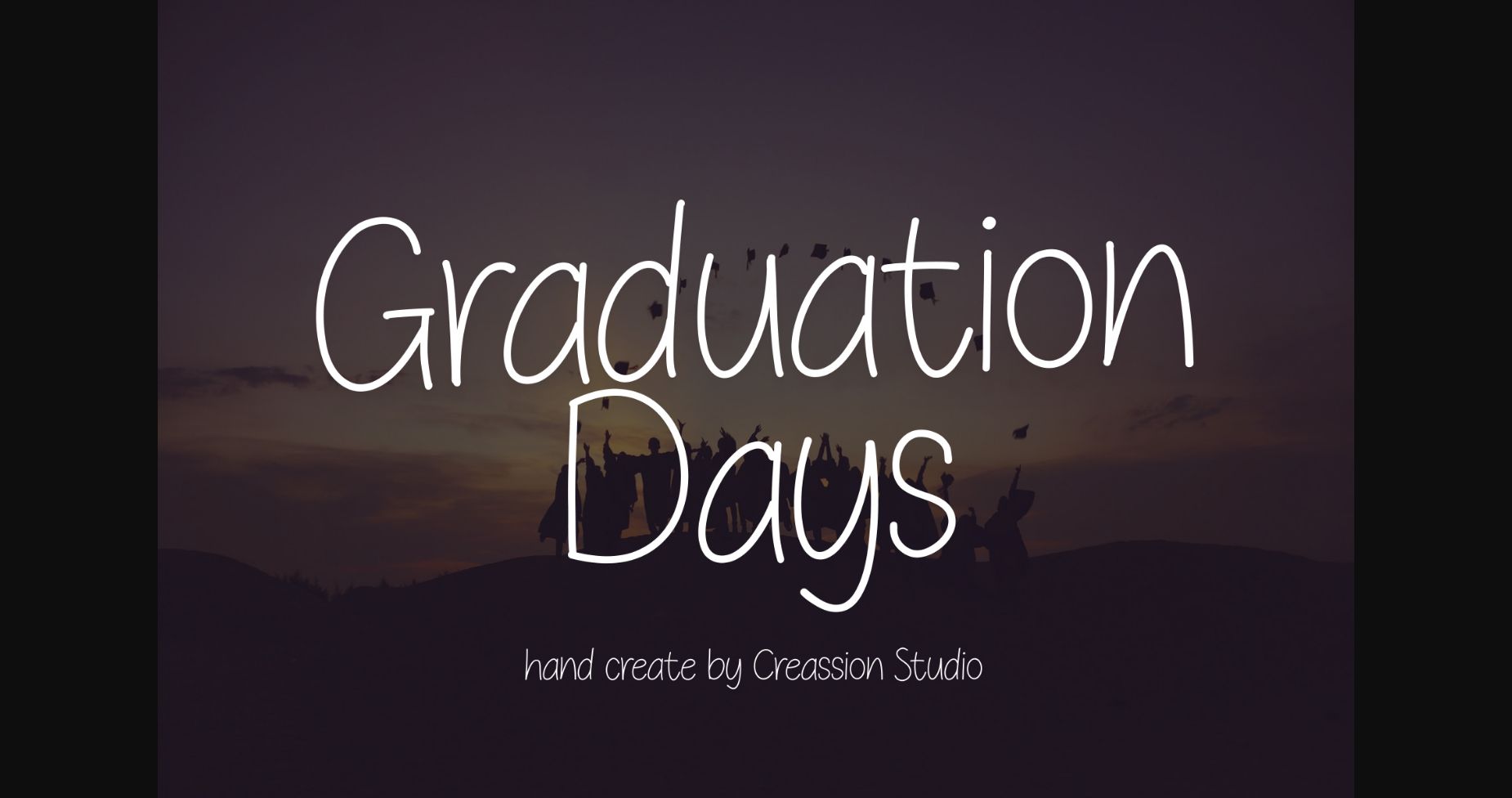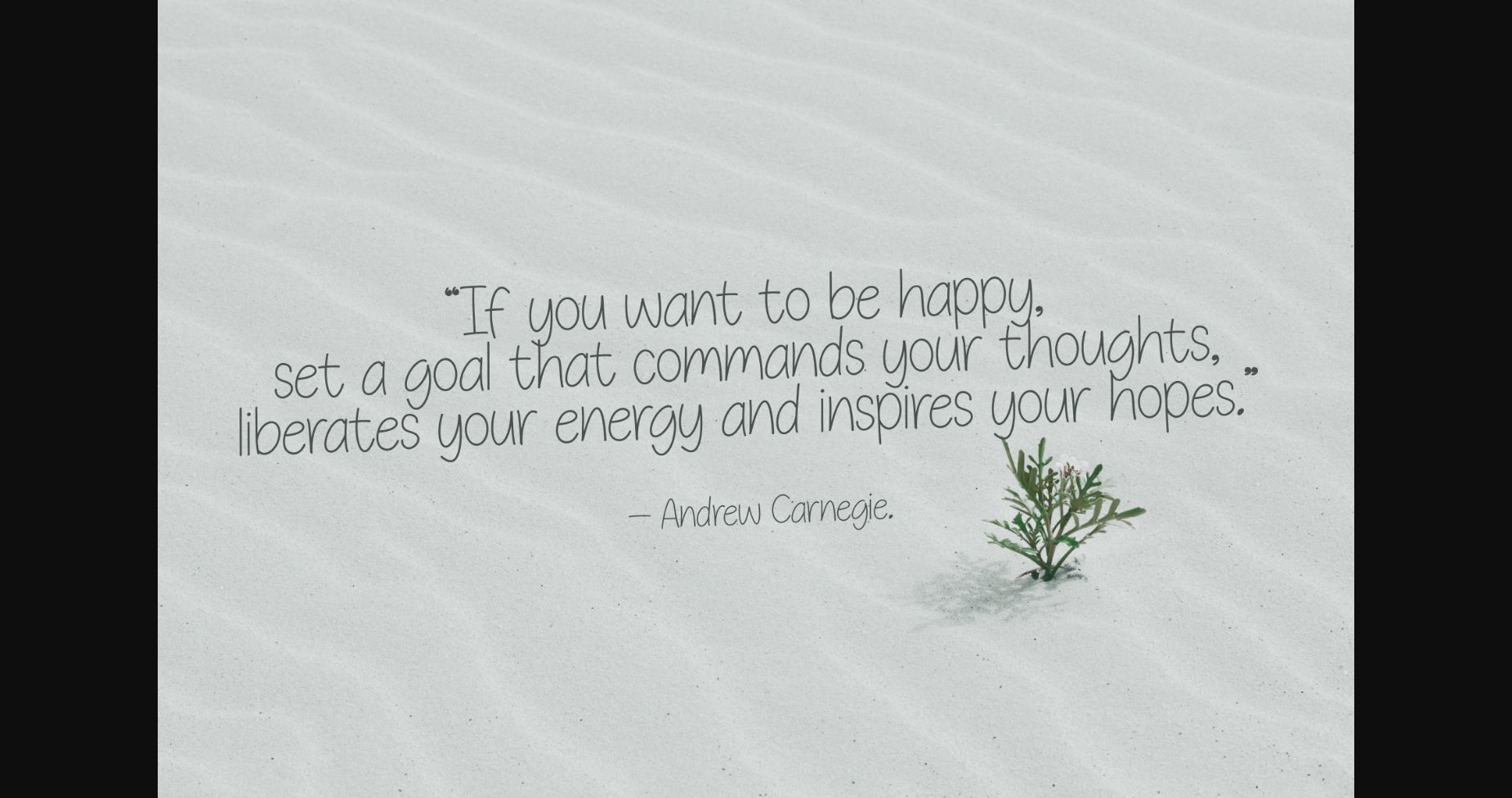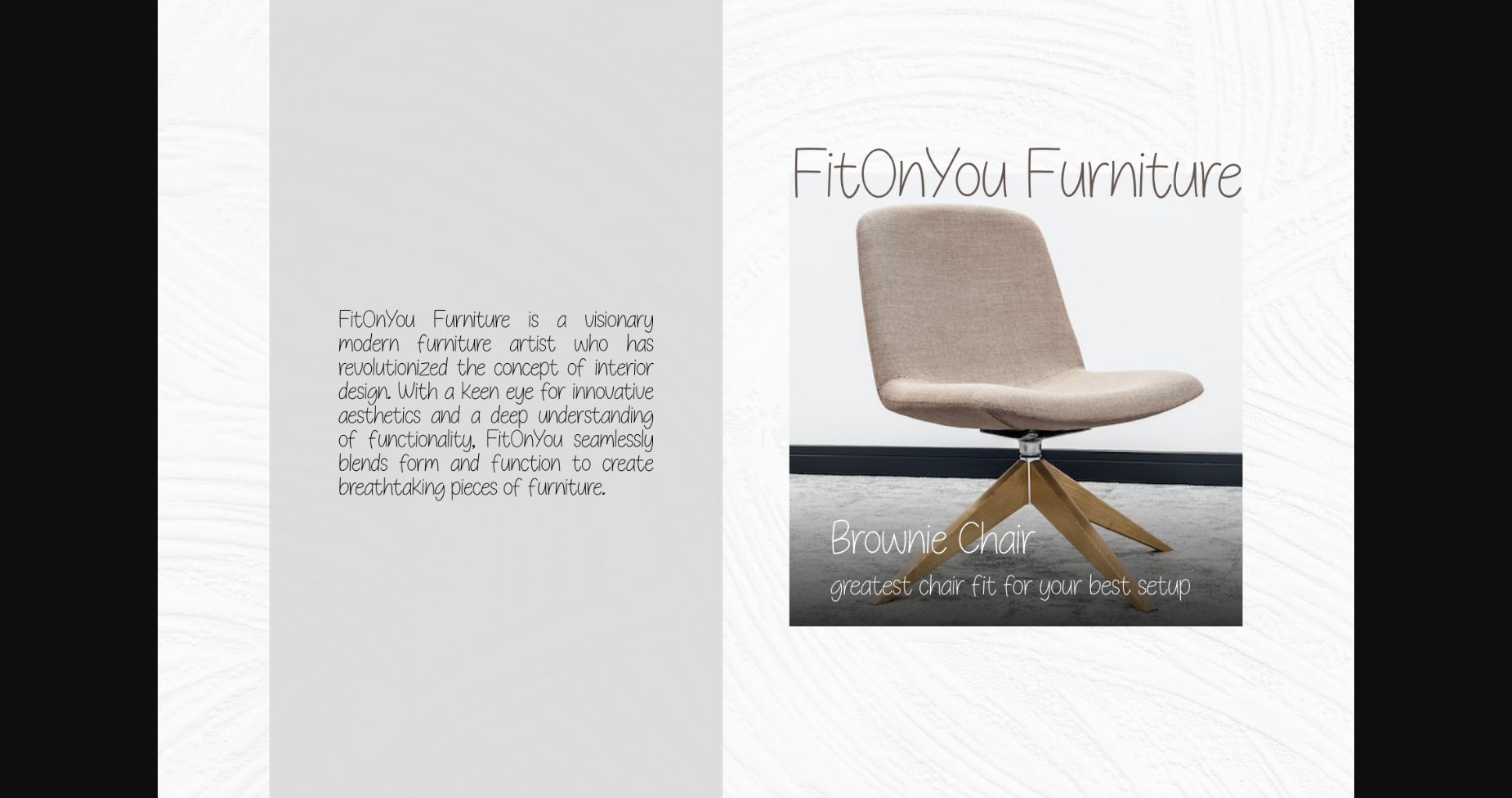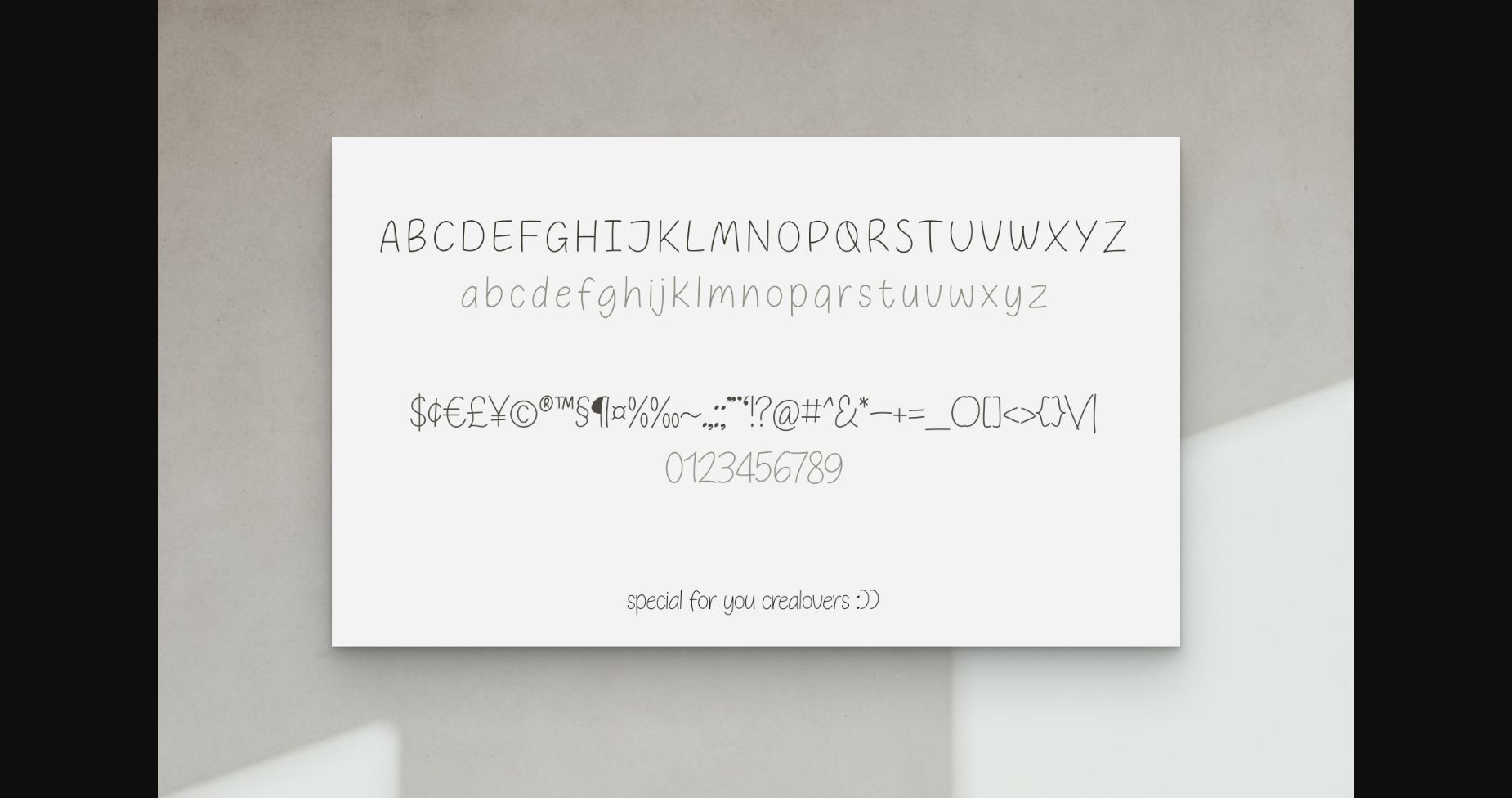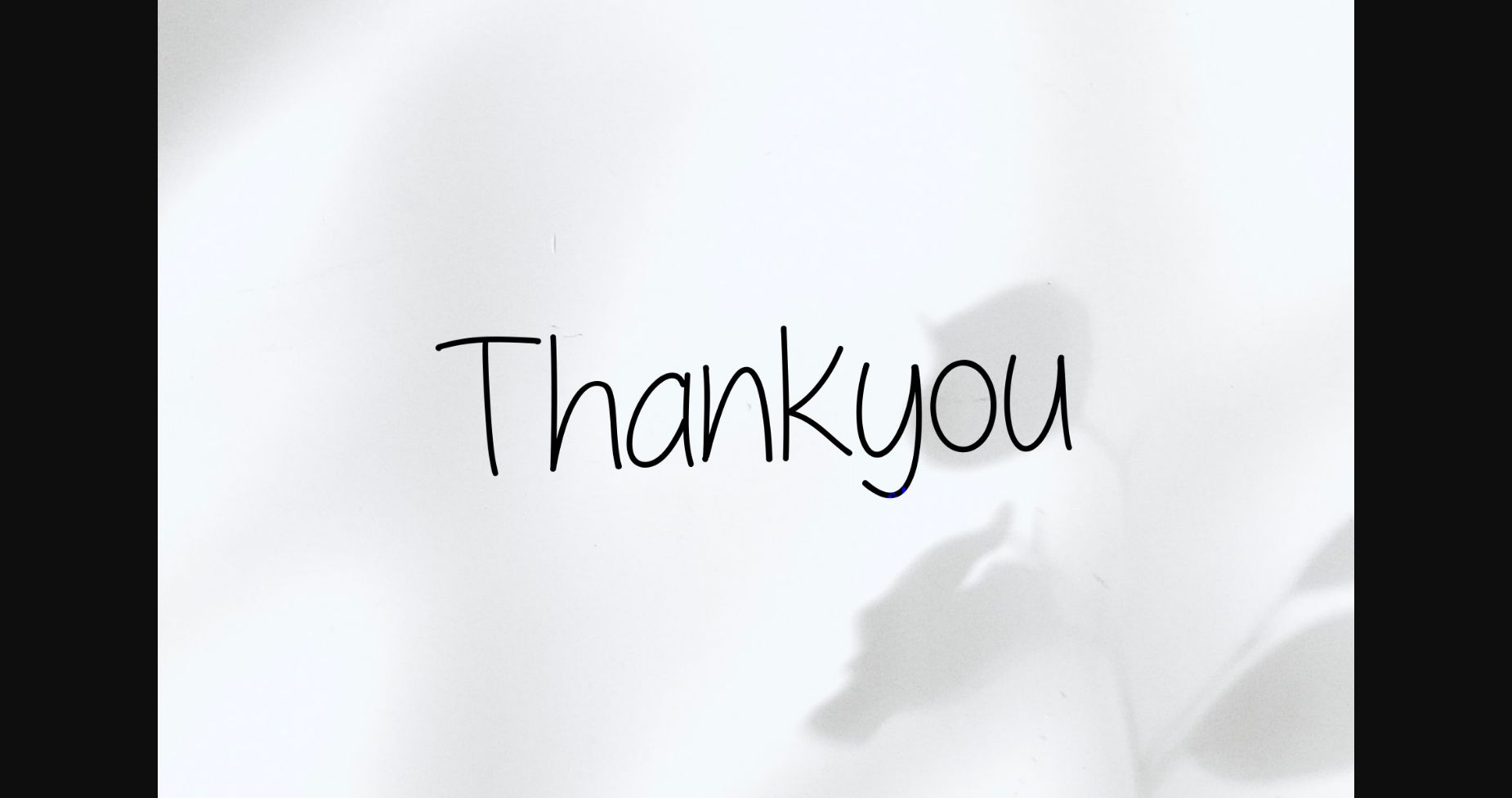
About Graduation Day Font
Graduation Day is a cool and modern Sans Serif font. Whether you’re using it for crafts, digital design, presentations, or making greeting cards, this font has the potential to become your favorite go-to font, no matter the occasion.